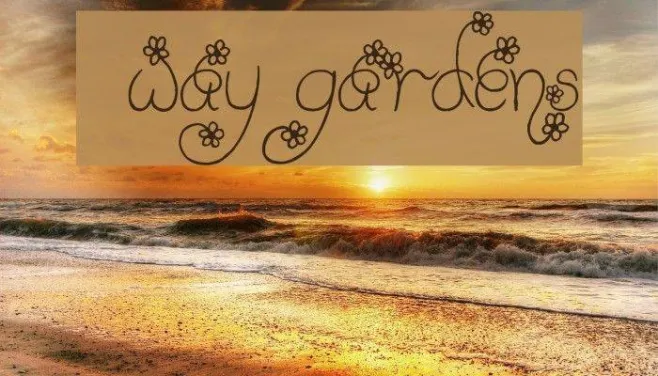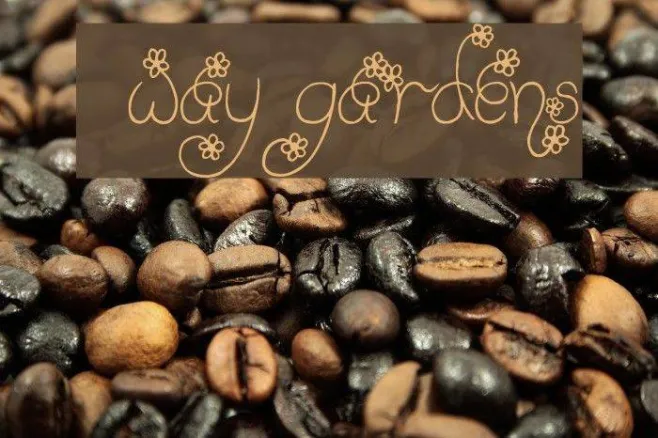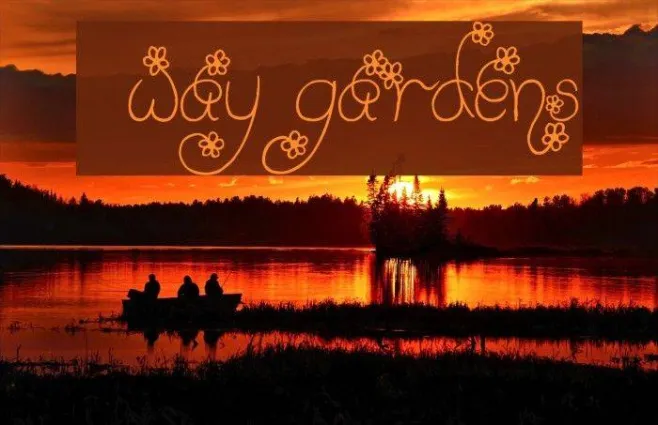
[Way Gardens] Font
[Way Gardens] Description
This whimsical font features playful, flowing characters adorned with delicate floral embellishments. The lowercase letters are particularly ornate, with each character integrating small flowers that add a touch of nature-inspired charm. The uppercase letters maintain a more traditional script style, providing a balanced contrast to the decorative lowercase. The numerals are bold and clear, offering easy readability. Special characters are included, with some featuring additional decorative elements. This font is ideal for projects that require a touch of elegance and creativity, such as invitations, greeting cards, or branding for floral or nature-themed products.
| Use Case | Invitations, Greeting cards, Branding |
| Proposed Projects | Ideal for wedding invitations, greeting cards, nature-themed branding, and decorative posters. |